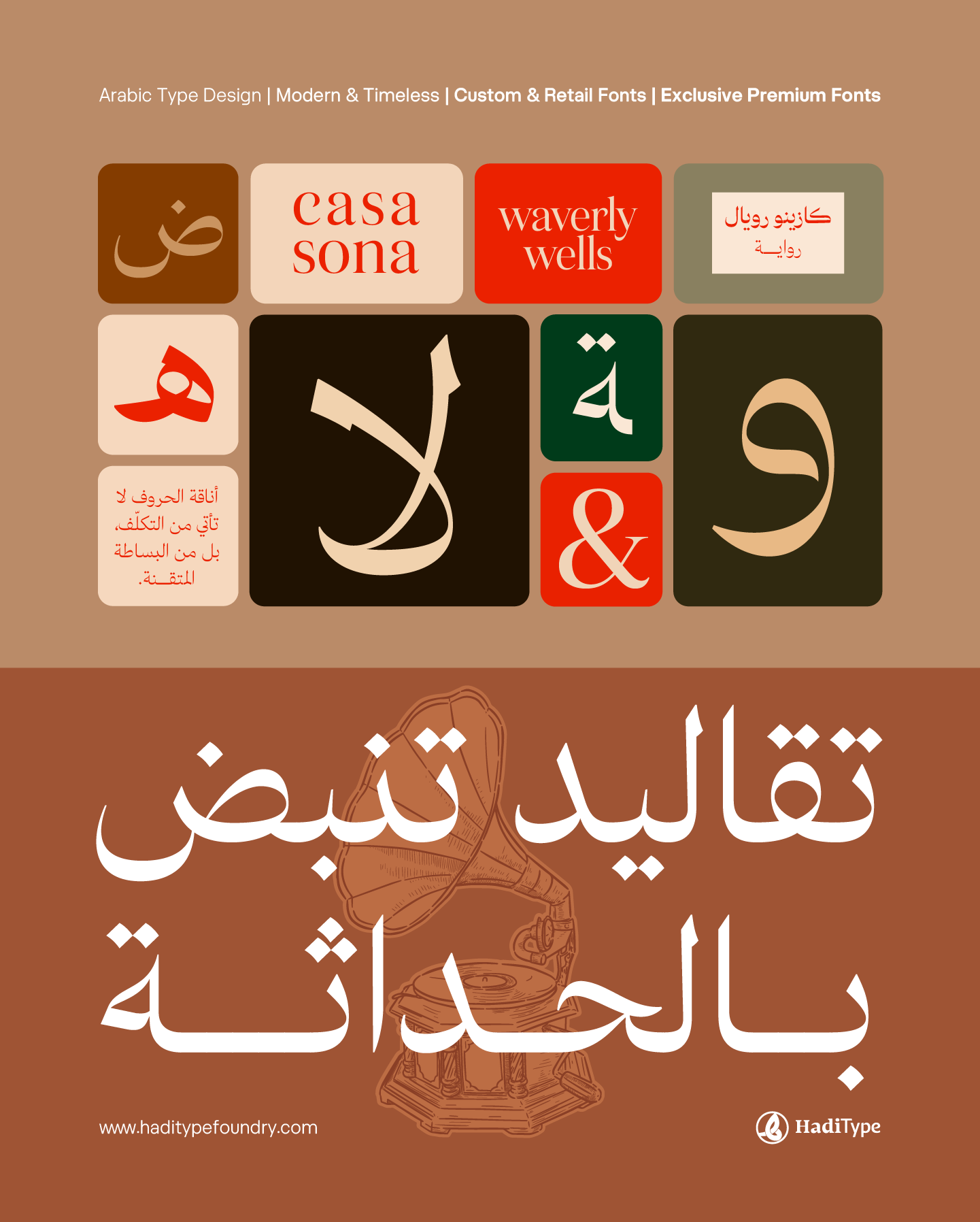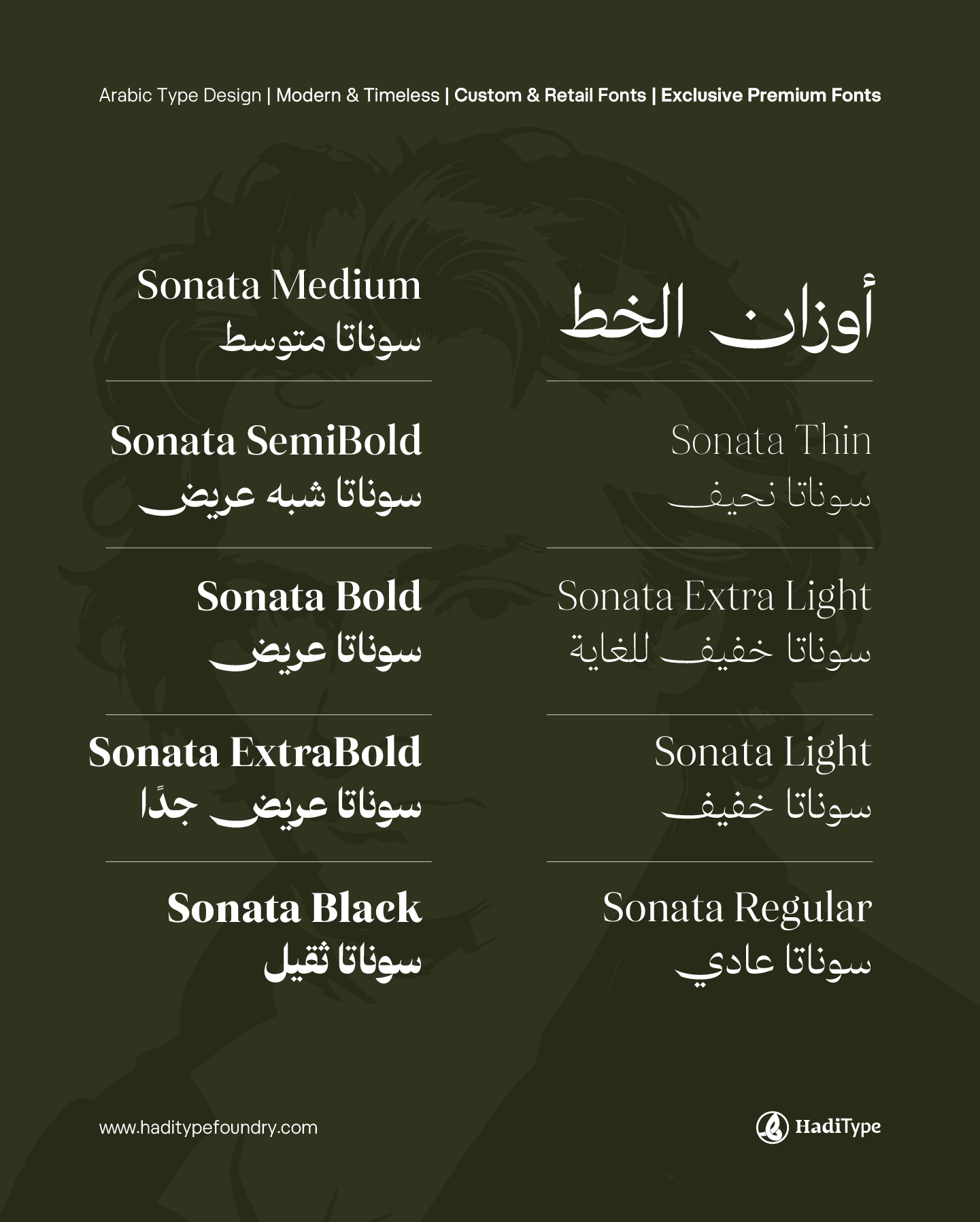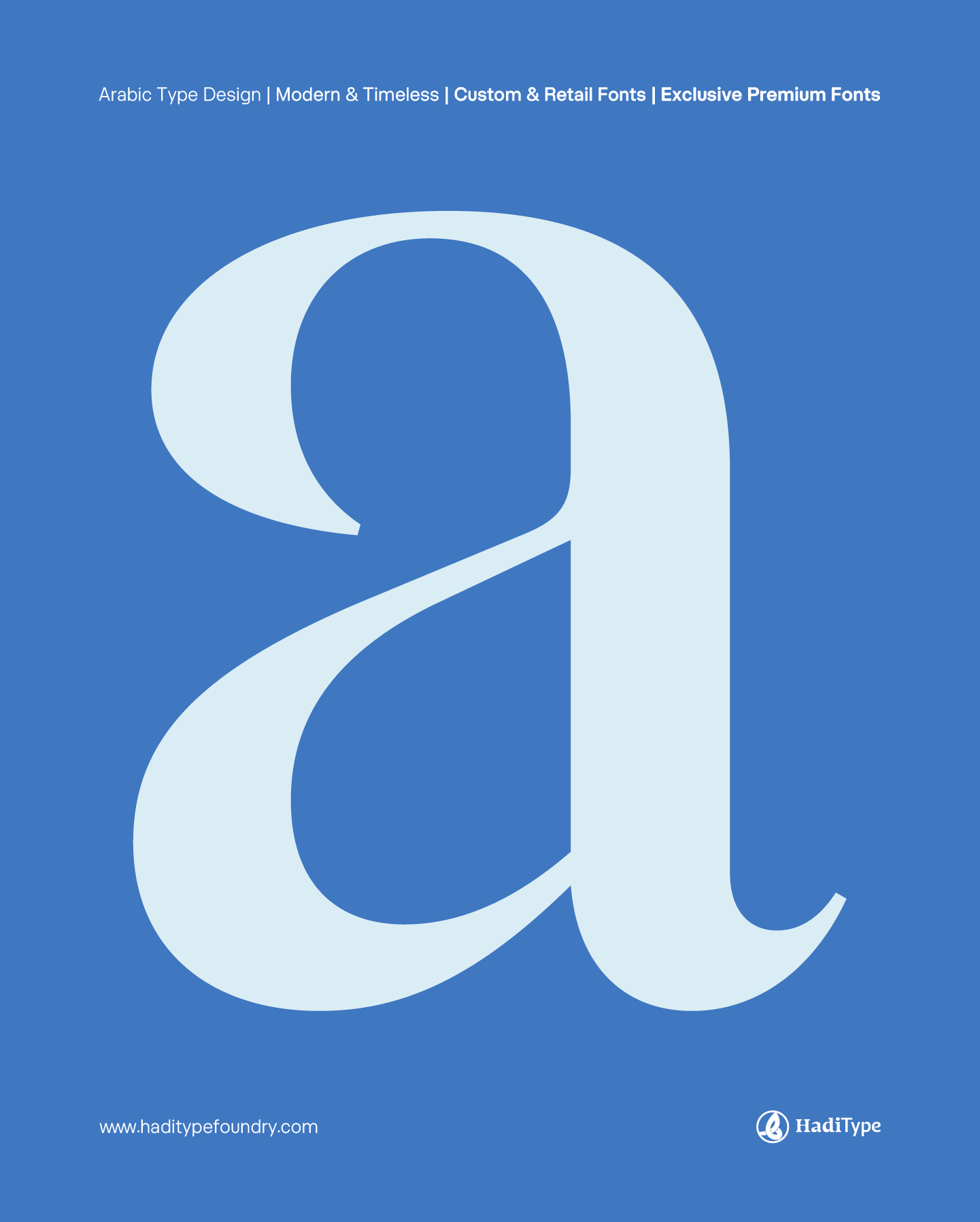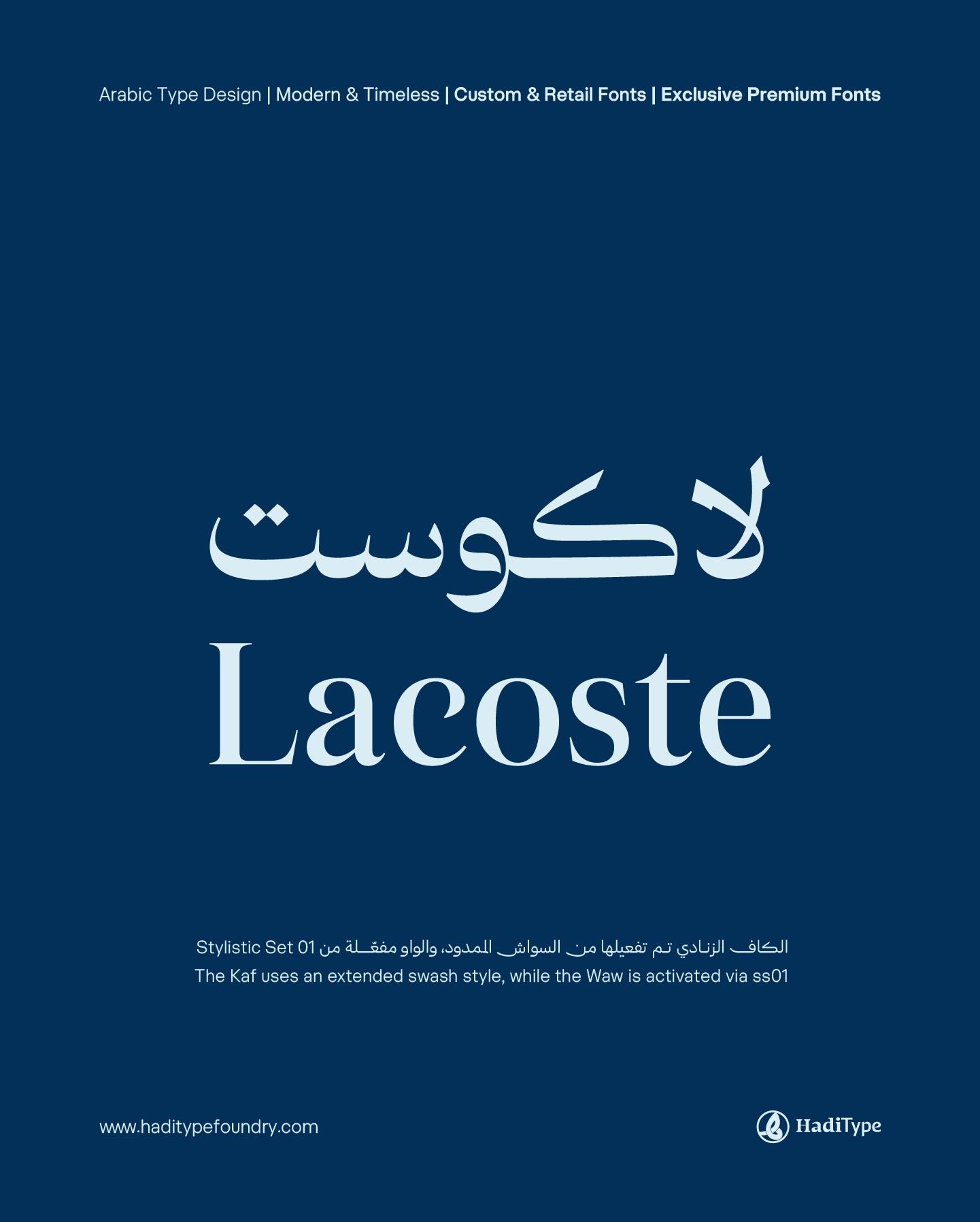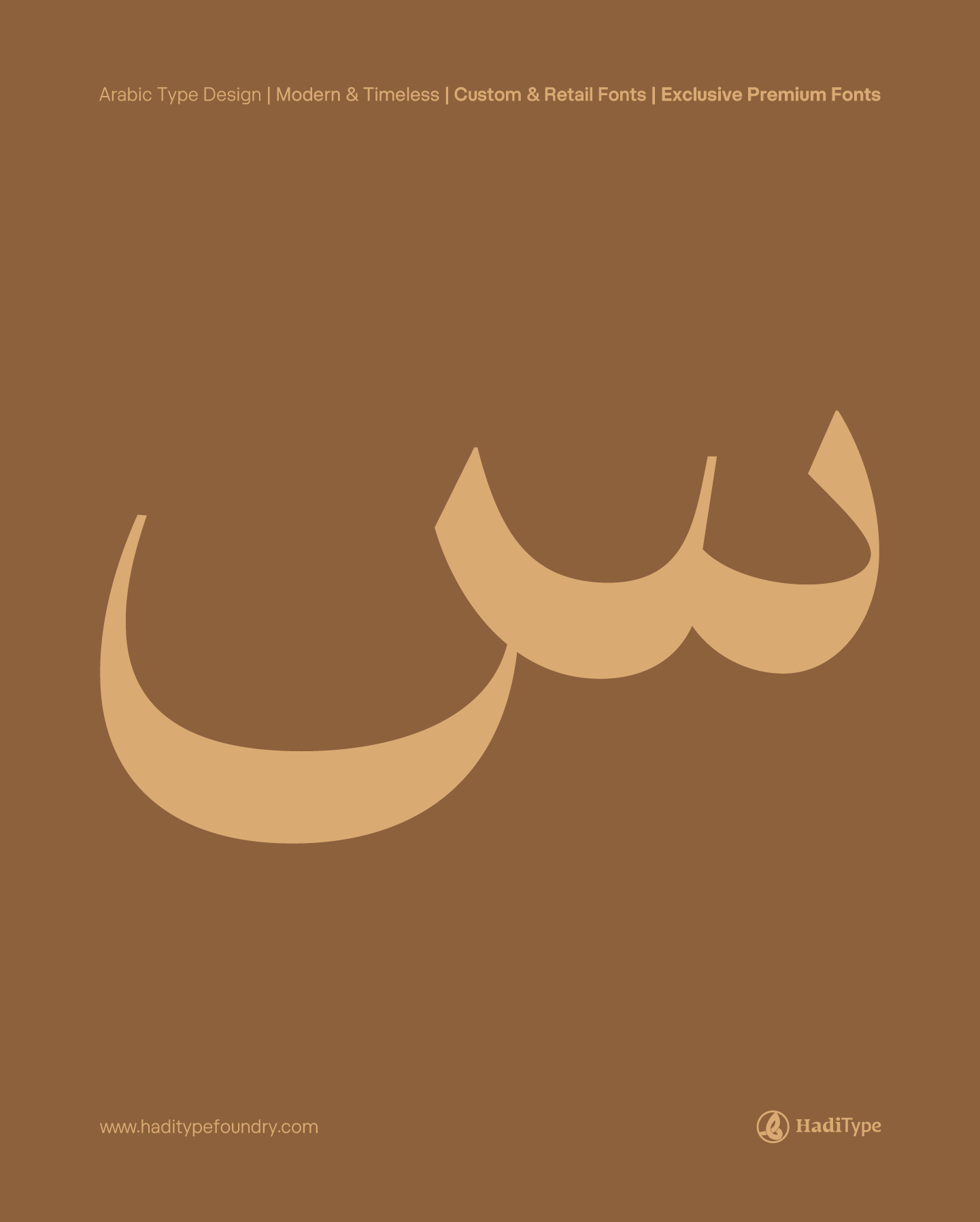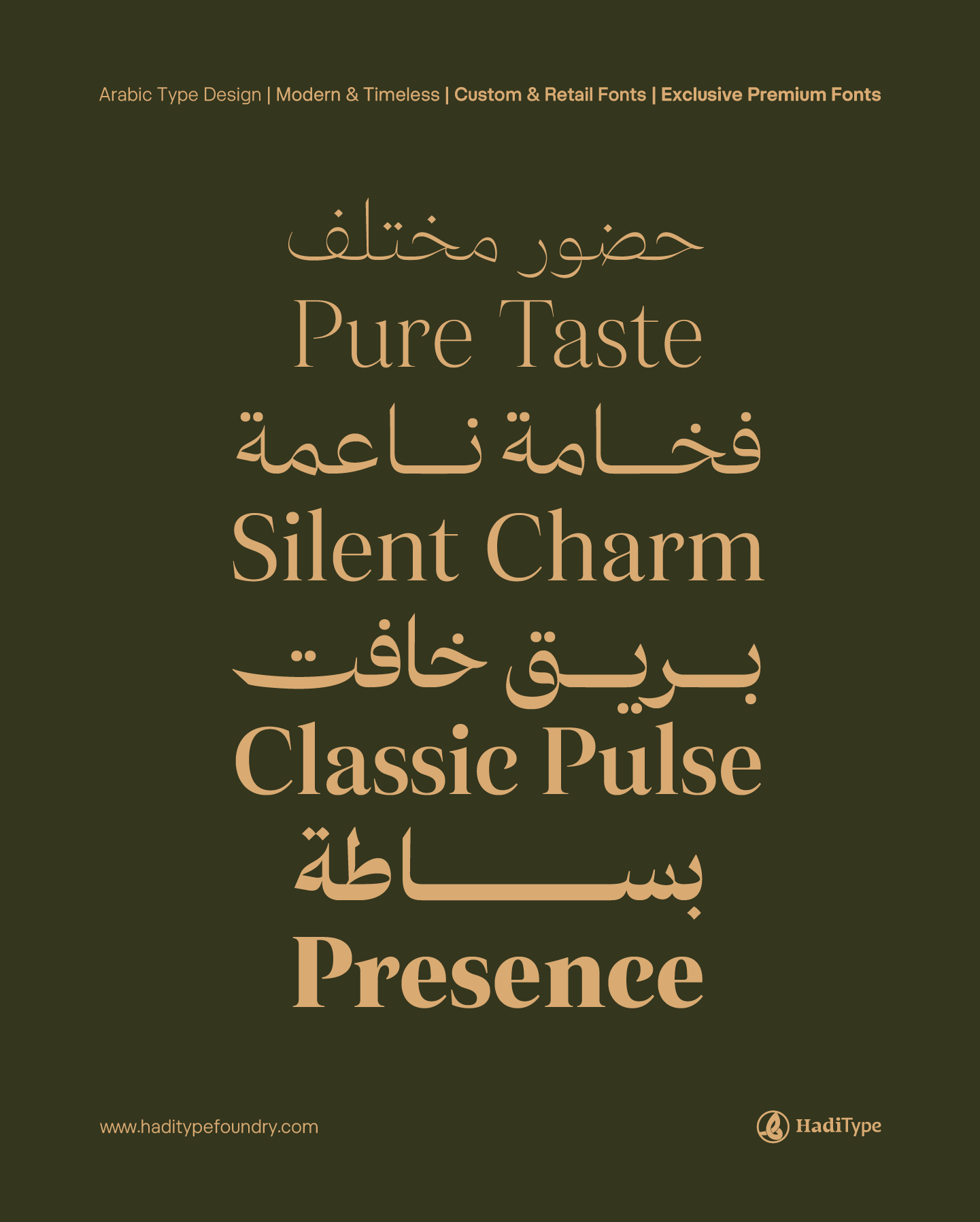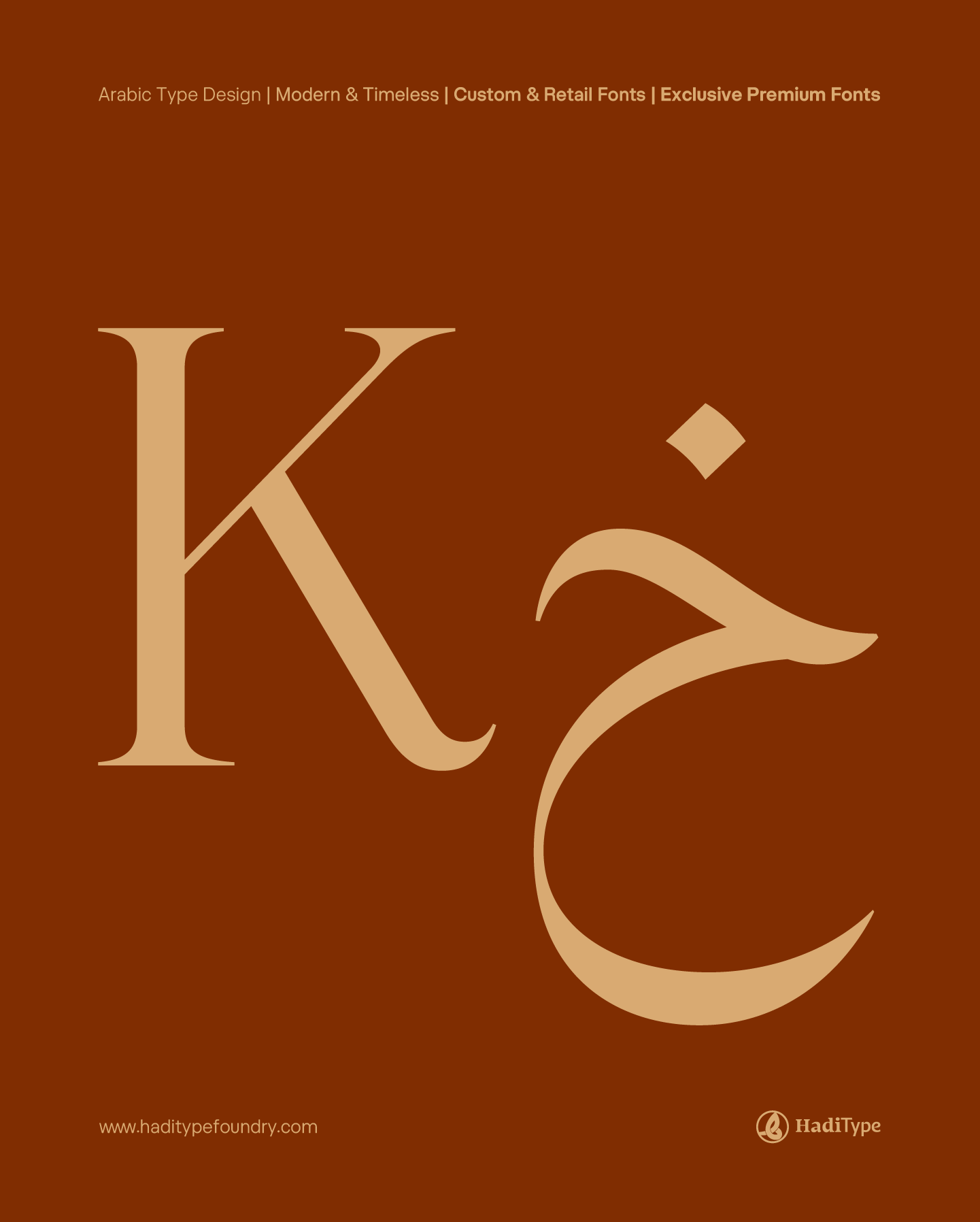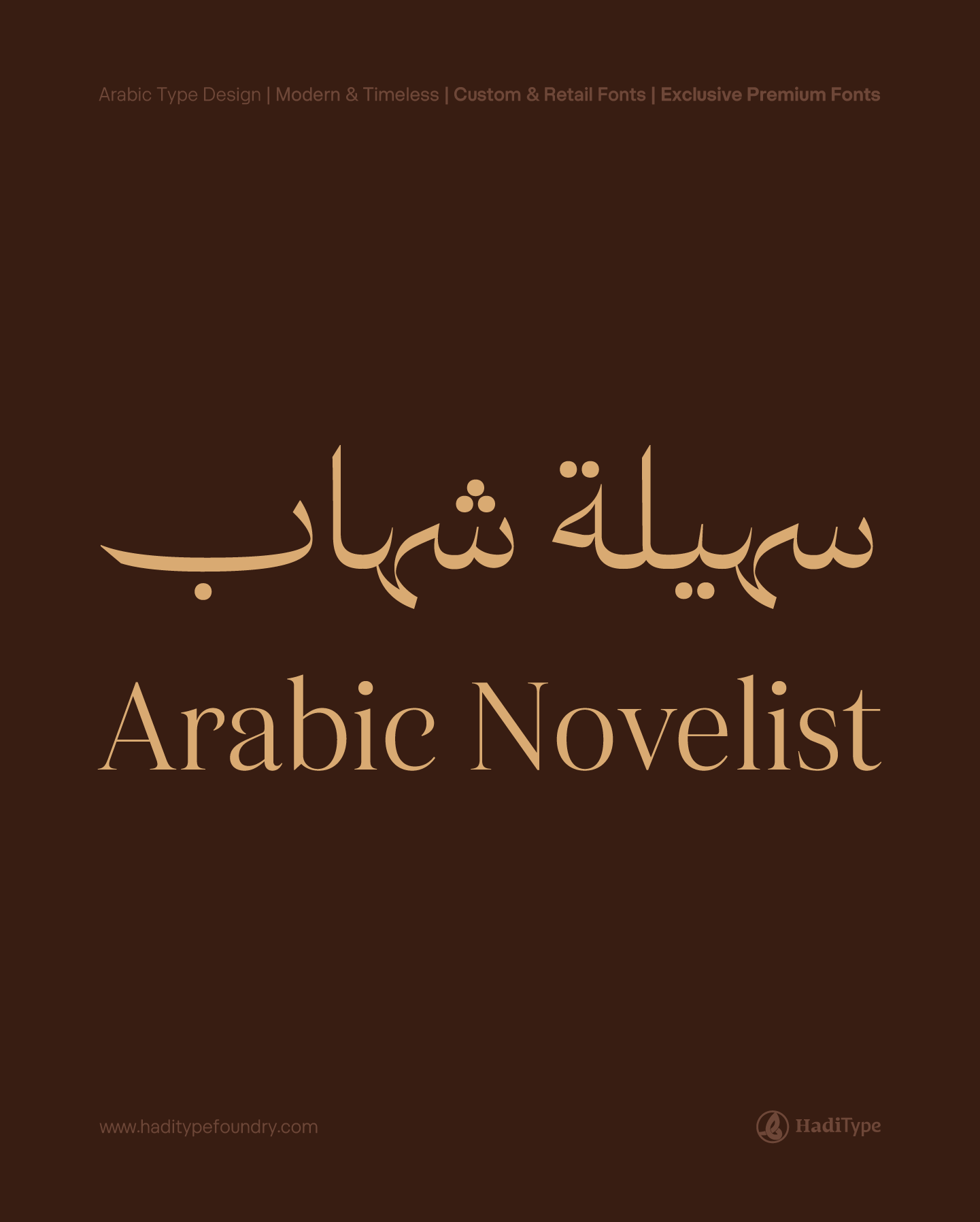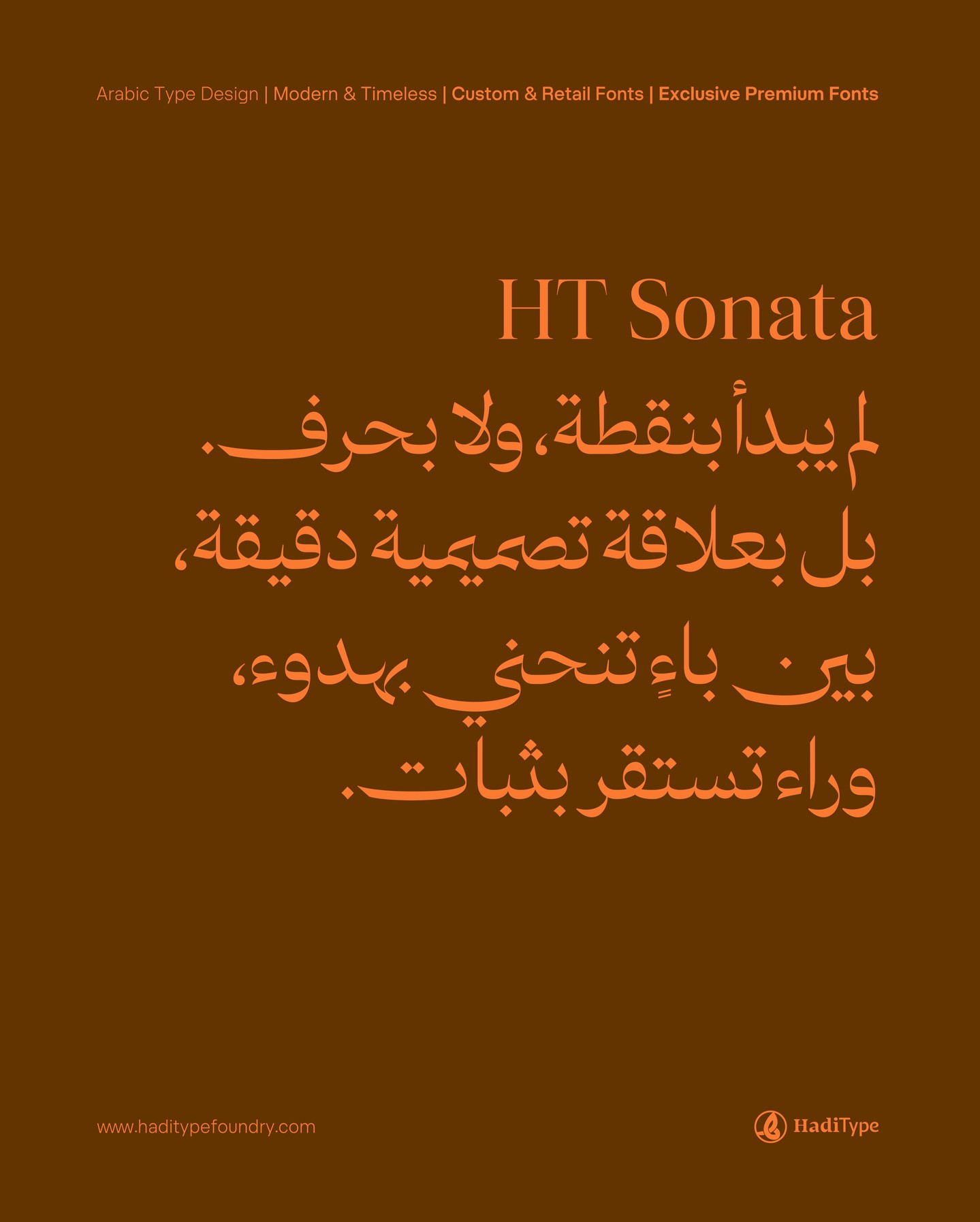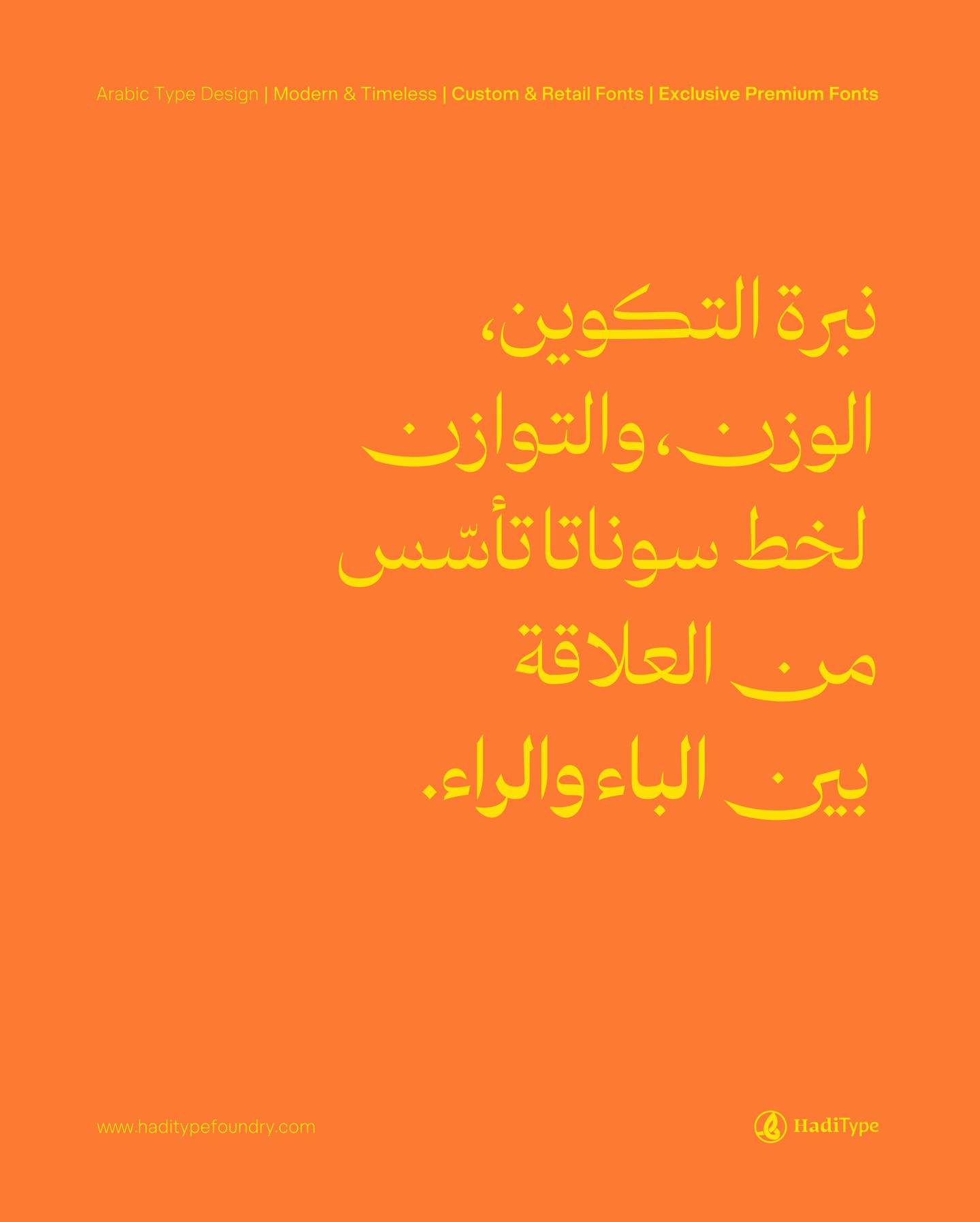
HT Sonata
Sonata is a contemporary Arabic–Latin display typeface designed with an emphasis on precision, balance, and expressiveness. Inspired by the grace of Arabic calligraphy and the structure of modern editorial design, Sonata bridges classical elegance with contemporary typographic needs.
With finely tuned proportions and subtle detailing, Sonata is ideal for high-end branding, editorial titles, product packaging, and visual identities seeking distinction.
Key Features:
– 9 display weights from Thin to Black
– Full support for Arabic and Latin scripts
– Refined OpenType features and kerning
– Carefully optimized for display sizes (poster, signage, web headers)
– Harmonized bilingual rhythm for cohesive cross-script branding
Sonata was built for designers who demand clarity without compromising soul.
Whether in a luxury magazine, a cultural identity, or a global campaign, Sonata speaks fluently in both languages.